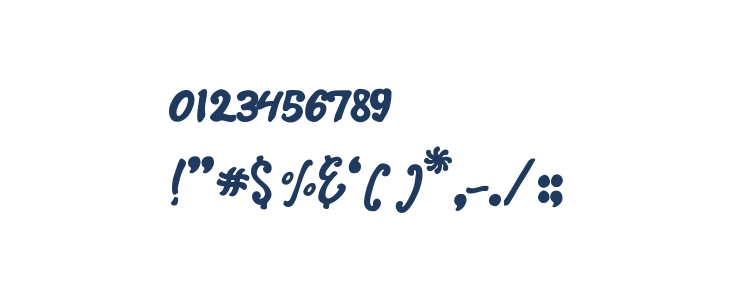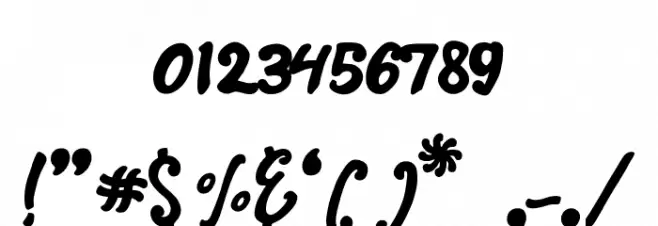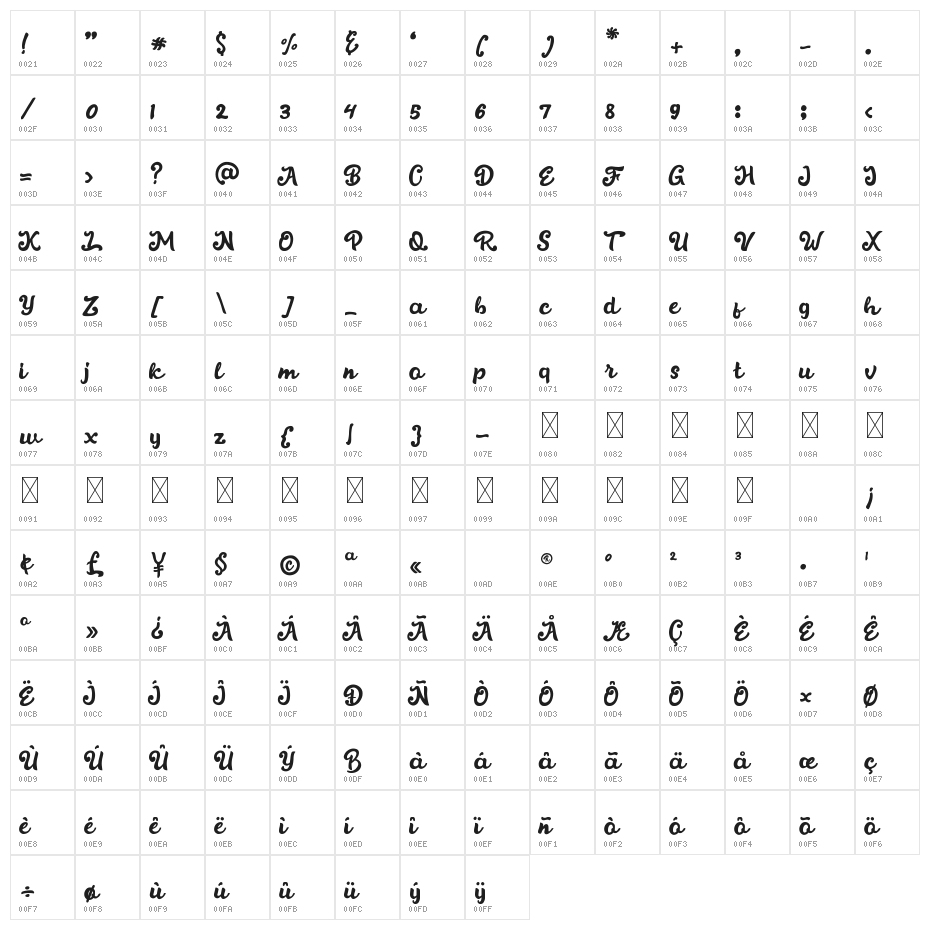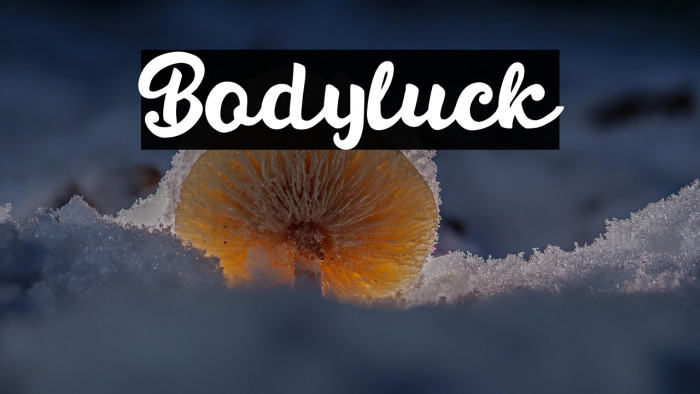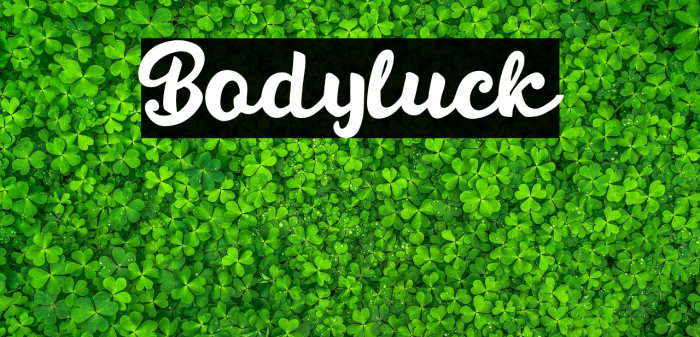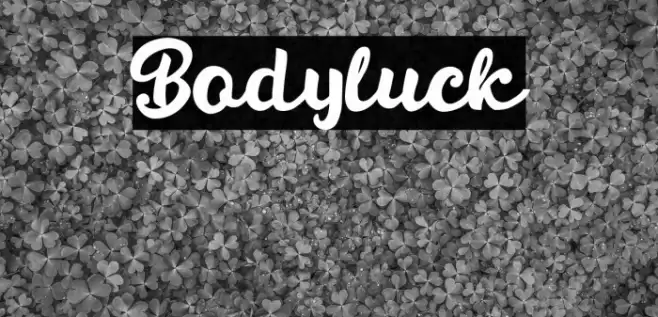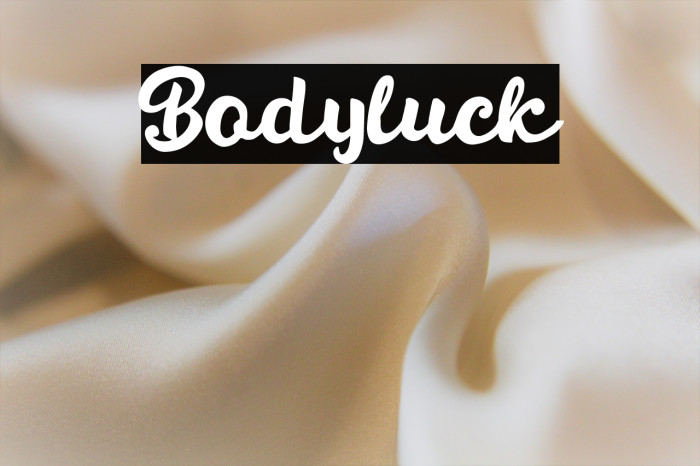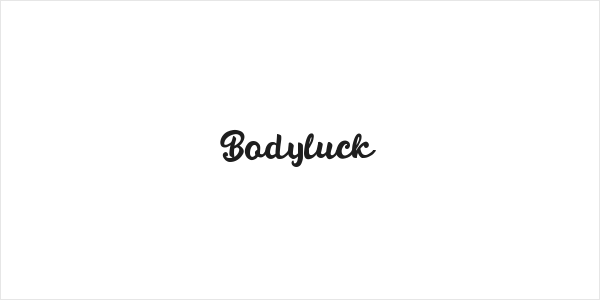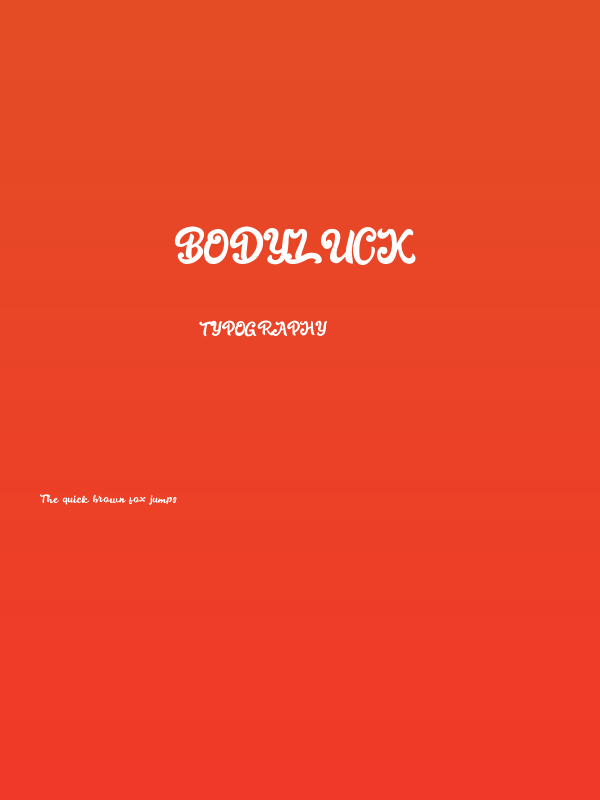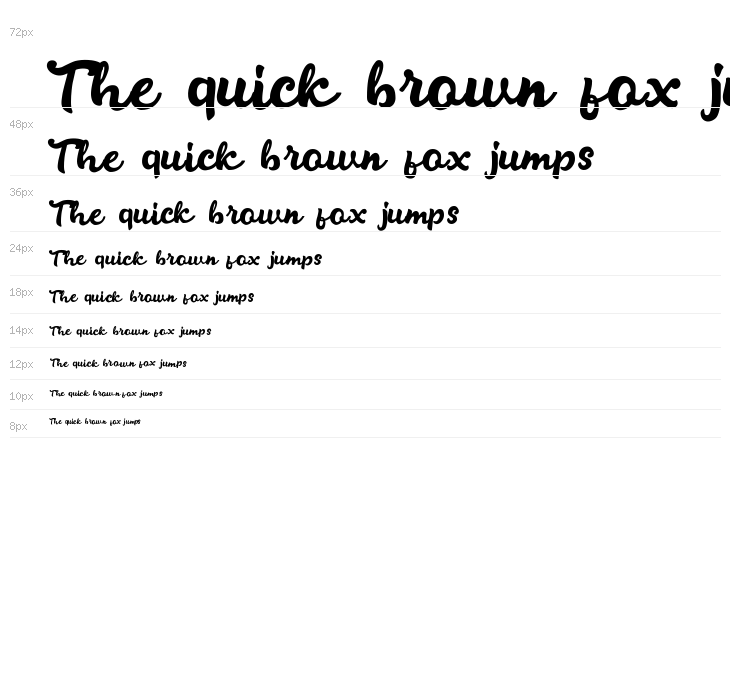
Bodyluck Font
Bodyluck Description
This font features a playful and bold script style with a handwritten feel. The characters are rounded and connected, giving it a fluid and dynamic appearance. The uppercase letters are slightly more elaborate, with decorative swirls and loops, while the lowercase letters maintain a consistent flow. The numerals are clear and legible, matching the overall style of the alphabet. Special characters are creatively designed, adding to the font's whimsical nature. This font is ideal for projects that require a personal touch or a sense of fun and creativity.
| Proposed Projects | Greeting cards, invitations, playful branding, social media graphics, and children's book covers. |